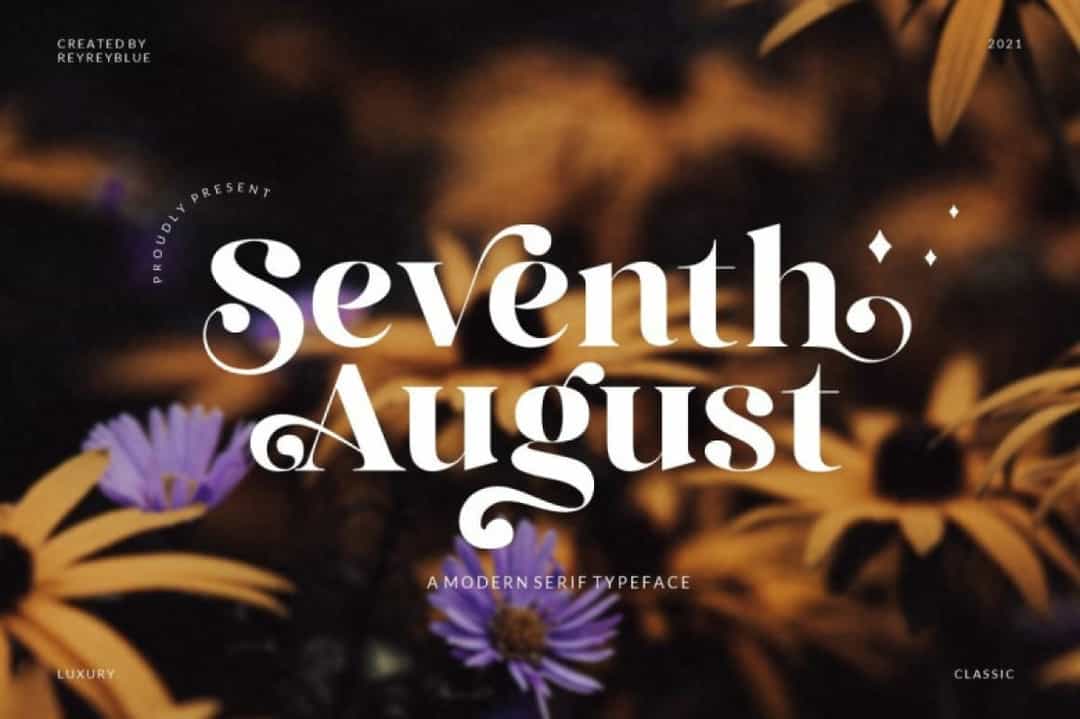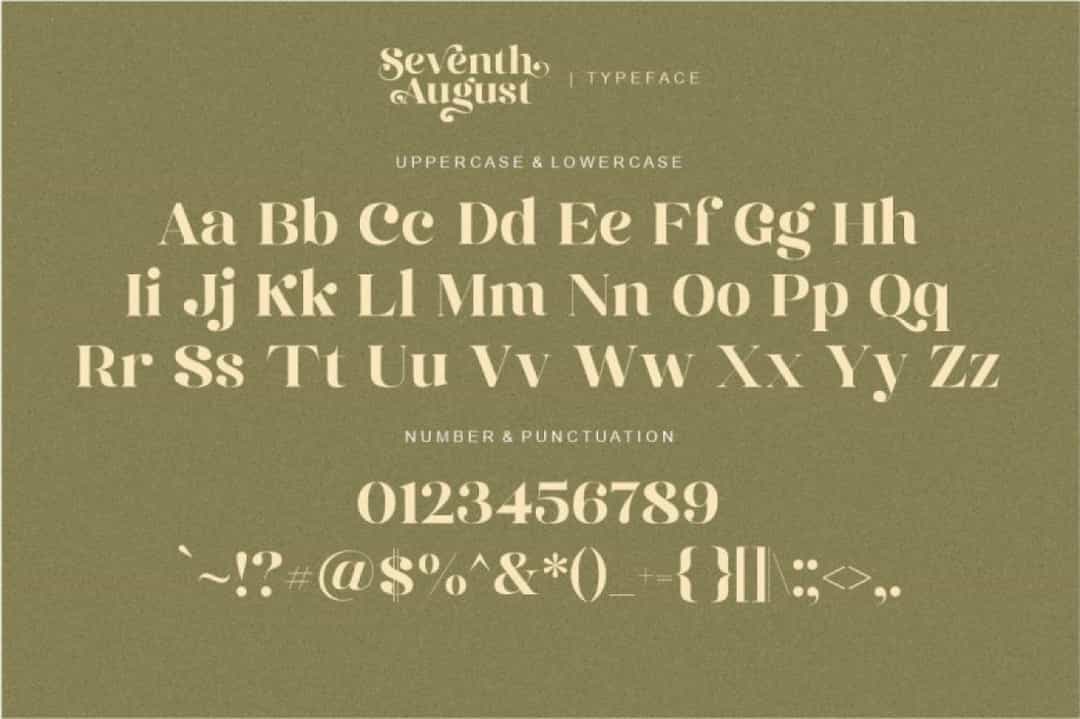
Seventh August is an eye-catching serif font with distinctive style and contemporary appeal, perfect for use as headline, subheadline logos, logos or body text in books, magazines and much more! Plus its PUA encoded text means instant access to Swashes and Glyphs!